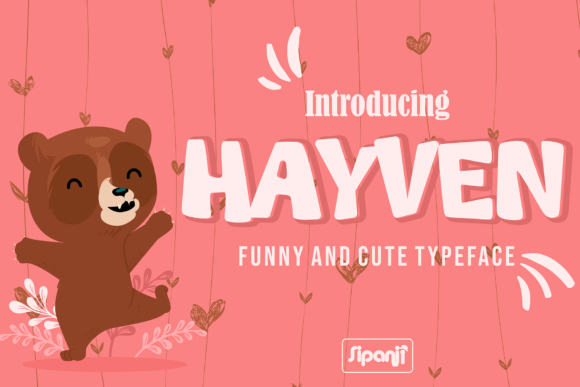
Unleash the captivating allure of Hayven, a display font that dances with boldness and cuteness. Crafted with meticulous care by Sipanji Figuree, this font is a masterpiece that will elevate your designs to enchanting new heights.
Immerse yourself in the charming embrace of Hayven. Its playful curves and subtle quirks ignite a sense of whimsy that will captivate your audience. Let Hayven be your canvas, where creativity blooms and imagination takes flight.
With Hayven, you'll discover a font that's both versatile and alluring – a true chameleon that effortlessly adapts to any design style. Whether you're crafting logos that demand attention or headlines that enchant, Hayven's versatility knows no bounds.
Step into a world where fonts ignite inspiration and evoke emotions. Hayven's unique character adds a touch of playful sophistication to your designs, transforming them into captivating works of art.
Don't settle for ordinary fonts. Embrace the extraordinary with Hayven. Let its bold strokes and charming quirks elevate your designs to new heights. It's the font that will make your creations shine brighter than ever before.